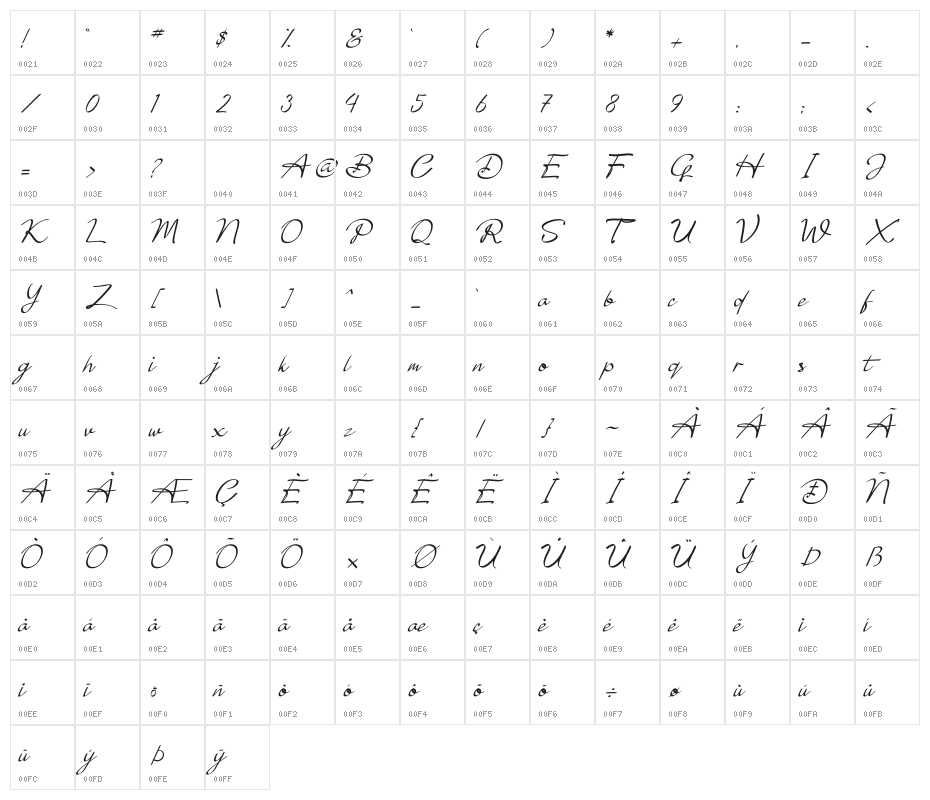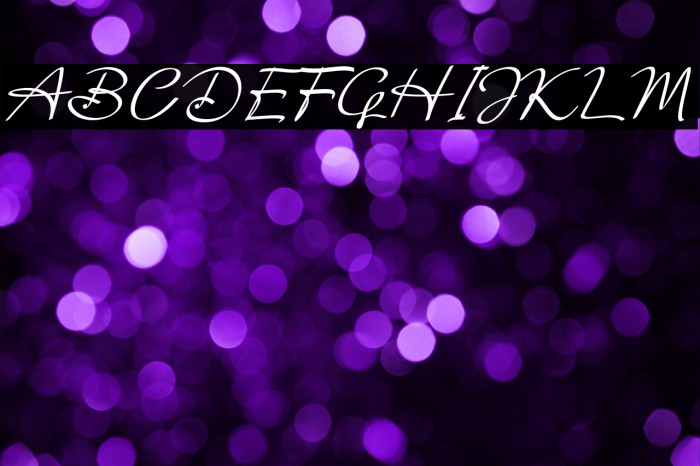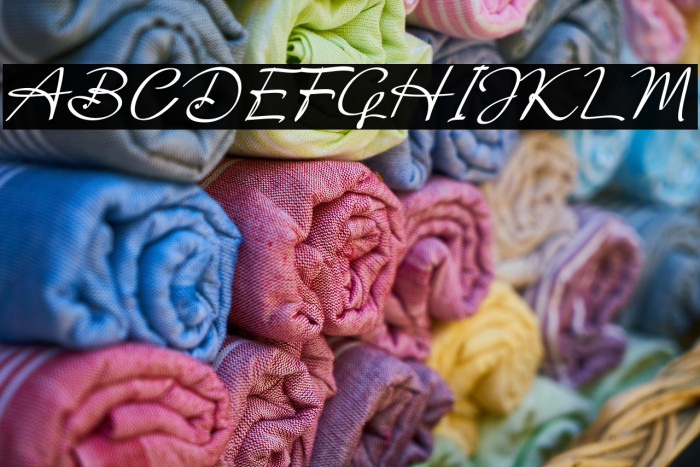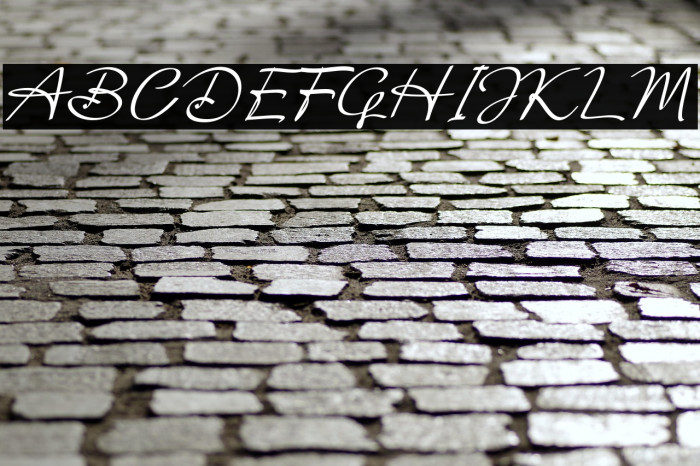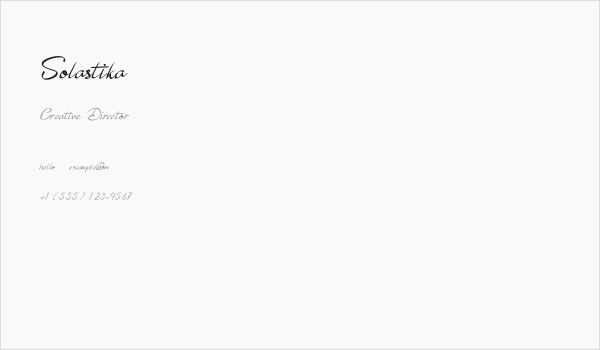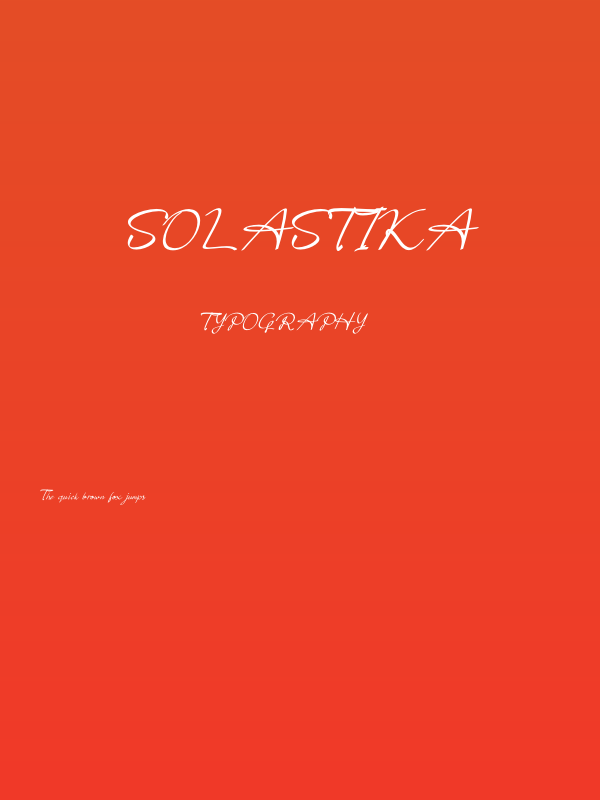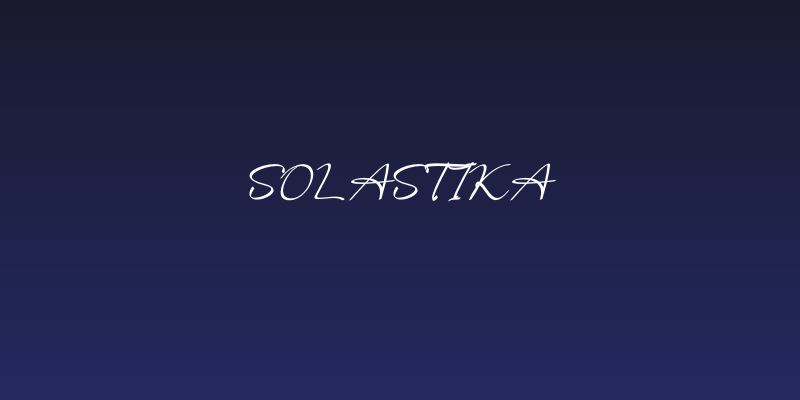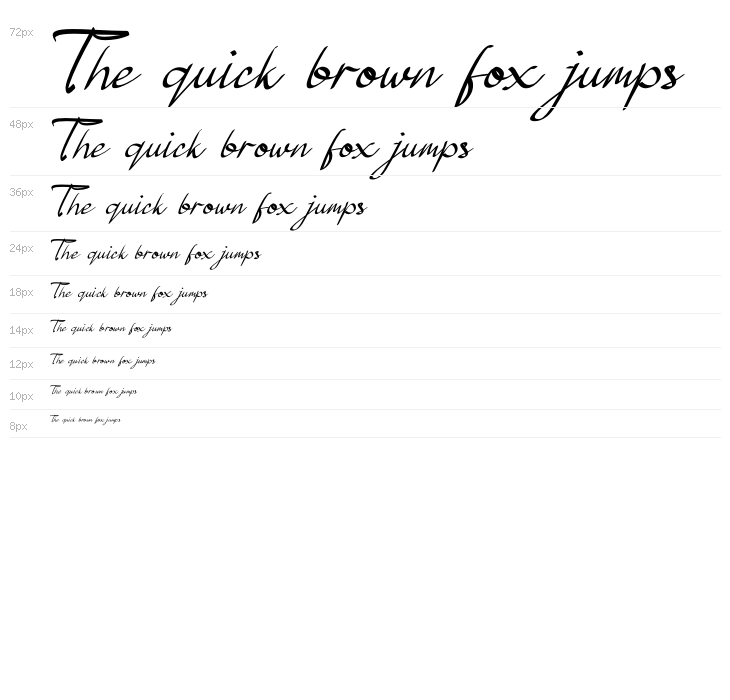
Solastika Font
Solastika Description
This font features an elegant and flowing script style, characterized by its cursive and connected letterforms. The uppercase letters exhibit a graceful and sophisticated appearance, with a slight slant that adds to its dynamic nature. The lowercase letters maintain a consistent flow, enhancing readability while preserving the artistic flair. Numbers are styled to match the overall script aesthetic, ensuring uniformity across all characters. Special characters are designed with the same attention to detail, seamlessly integrating into the font's cohesive look. The overall impression is one of elegance and fluidity, making it suitable for projects that require a touch of sophistication.
| Overall Style | Elegant, Artistic |
| Proposed Projects | Ideal for wedding invitations, elegant branding, personal stationery, and artistic projects. |